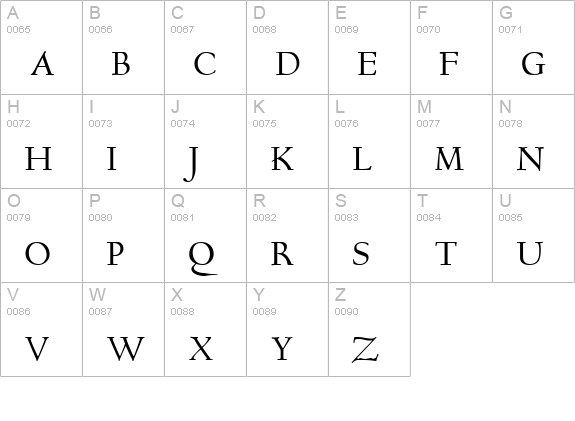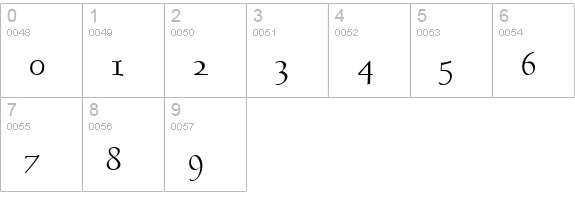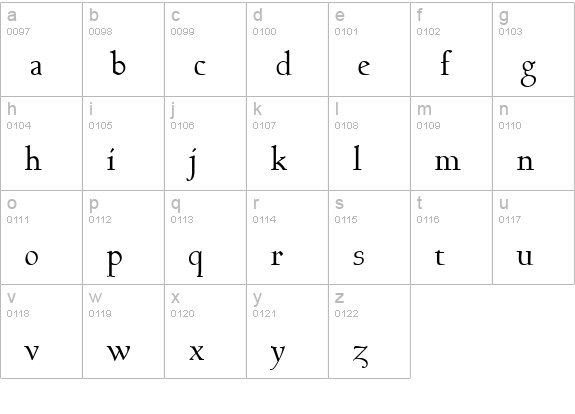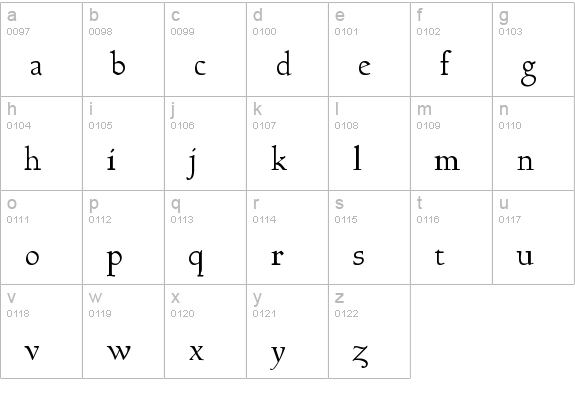
Cagliari Font Details
Cagliari font is a stunning and elegant typeface that exudes sophistication and charm. With its unique combination of classic serifs and modern design elements, Cagliari is perfect for adding a touch of luxury to your projects. Whether you're designing a logo, creating a wedding invitation, or crafting a branding identity, Cagliari font will elevate your work to new heights. The best part? Cagliari font is completely free to download at FontsMarket.com. This means you can bring a touch of class to your designs without breaking the bank. Don't miss out on this opportunity to enhance your creative projects with the timeless beauty of Cagliari font. Download it today and see the difference it can make in your work.